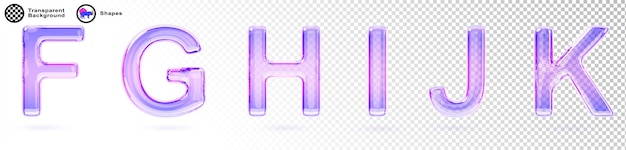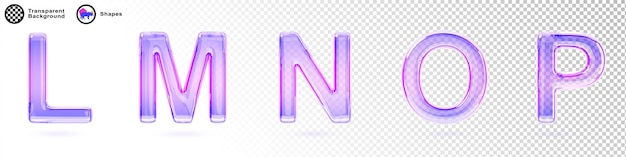
3d glass holographic font letters f g h i j k English alphabet of liquid transparent bubbles Iridescent glossy text balloons with gradient texture isolated realistic render set